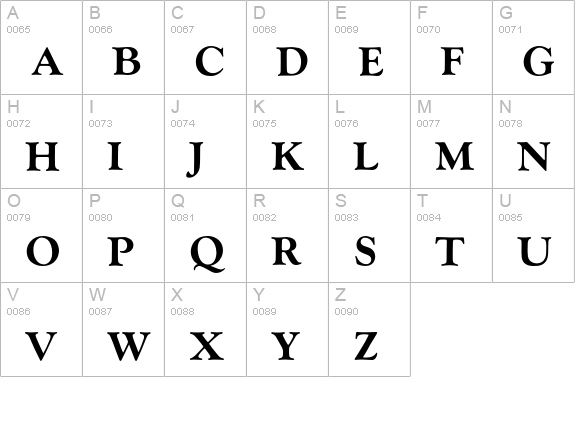
Goudy BQ Extra Bold Font Details
Goudy BQ Extra Bold is a strong, high-contrast variant in the Goudy typeface family \xE2\x80\x94 well suited to headlines, attention-grabbing titles, and strong calls-to-action.
Goudy BQ Extra Bold font exudes strength, confidence, and boldness with its thick, prominent letterforms. Each character is beautifully crafted with sharp edges and clear lines, making it perfect for headlines, titles, and statements that demand attention. The powerful presence of this font ensures that your message will be delivered with impact and authority. And the best part? Goudy BQ Extra Bold is available for free download at FontsMarket.com, where you can easily access this stunning typeface to elevate your designs to the next level. Whether you're creating posters, banners, logos, or any other visual content, Goudy BQ Extra Bold will make sure your words stand out in style. Get your hands on this impressive font today and let your creativity shine!